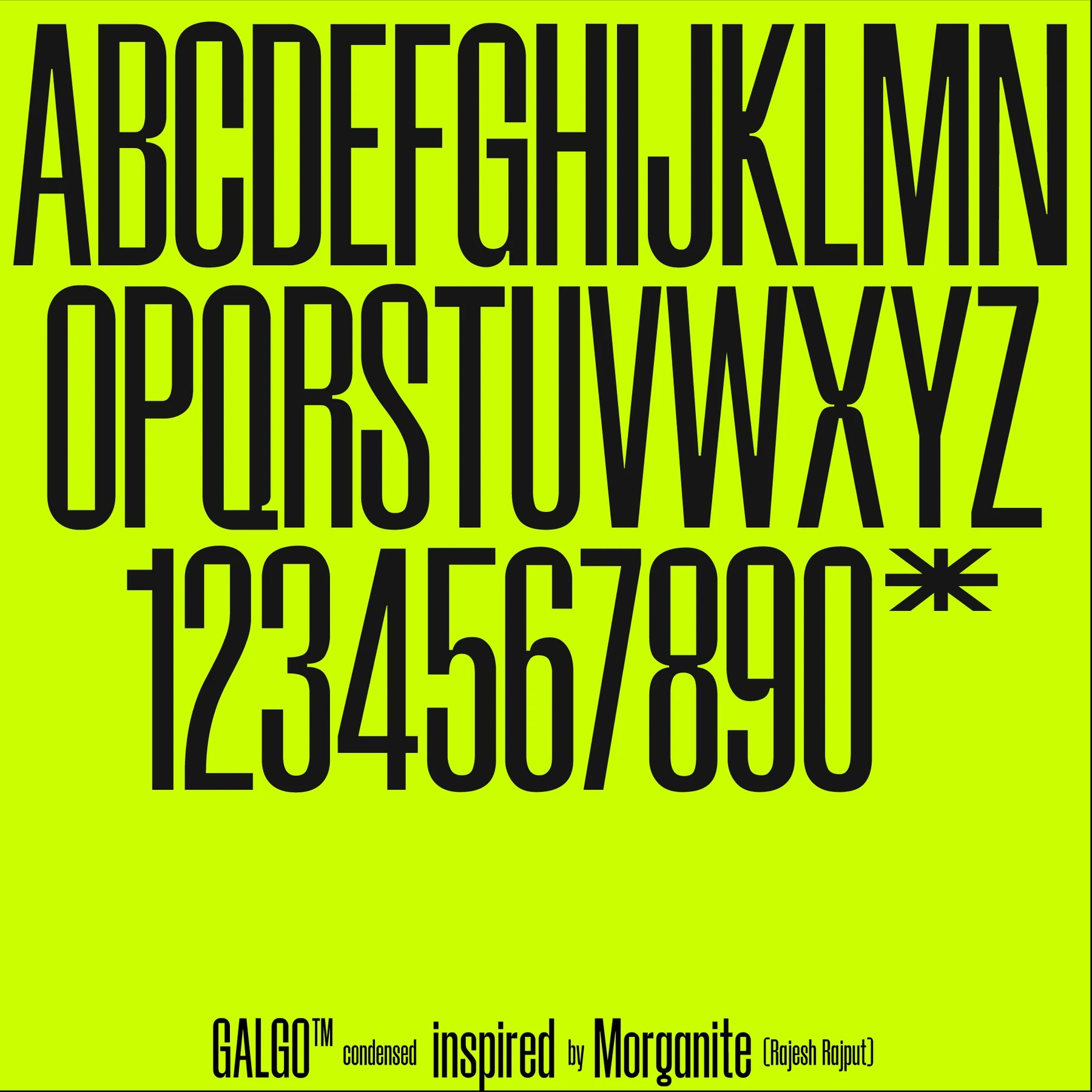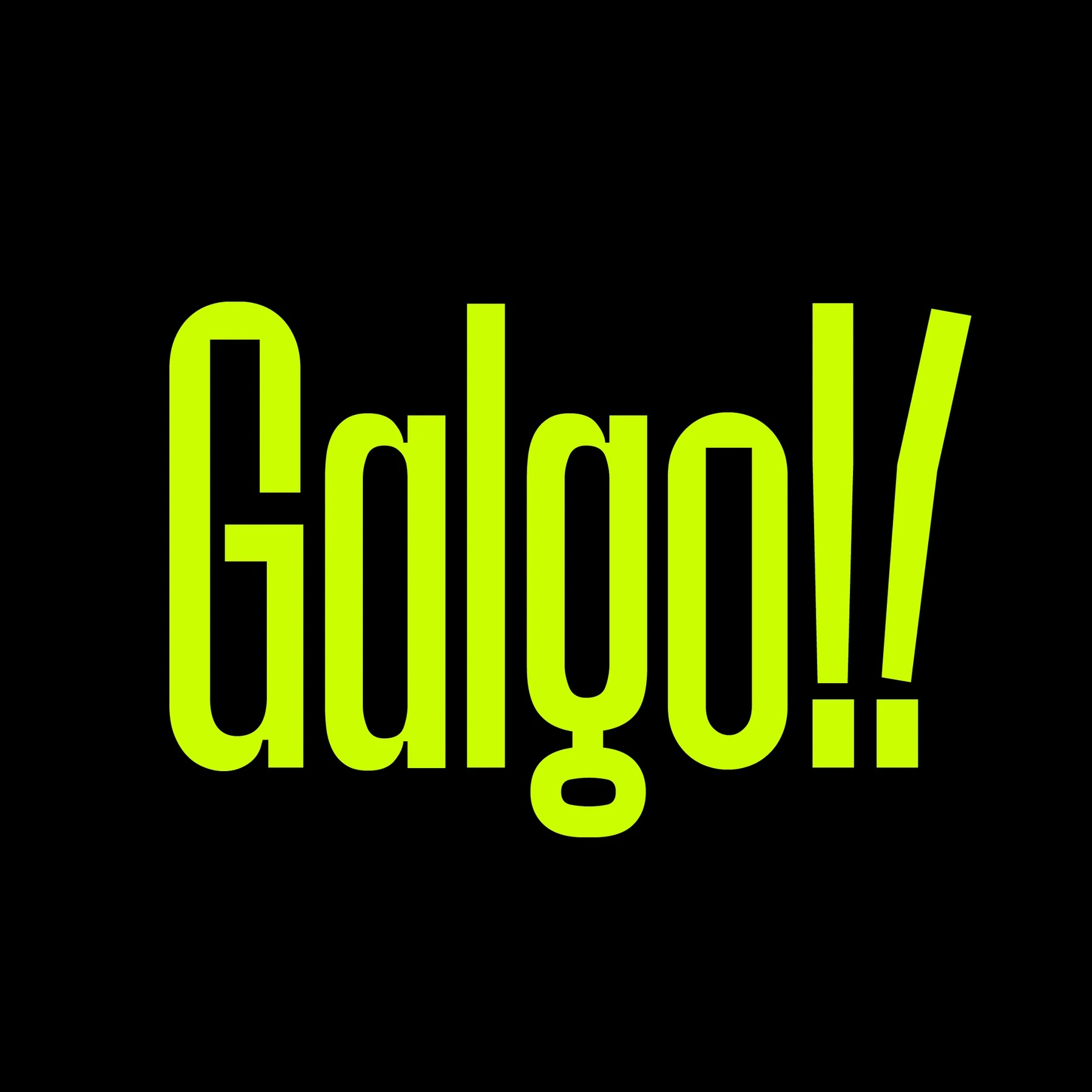
Galgo Condensed Sans Serif Font
It’s a new geometric sans serif variable typeface crafted & designed by giuliaboggio. Inspired by the design styles that are currently popular, let’s make your imagination come true with Galgo Condensed. It features upper & lowercase characters as well as multilingual support. Its weight is superior in posters, social media, headlines, magazine titles, clothing, large print formats – and wherever you want to see it.